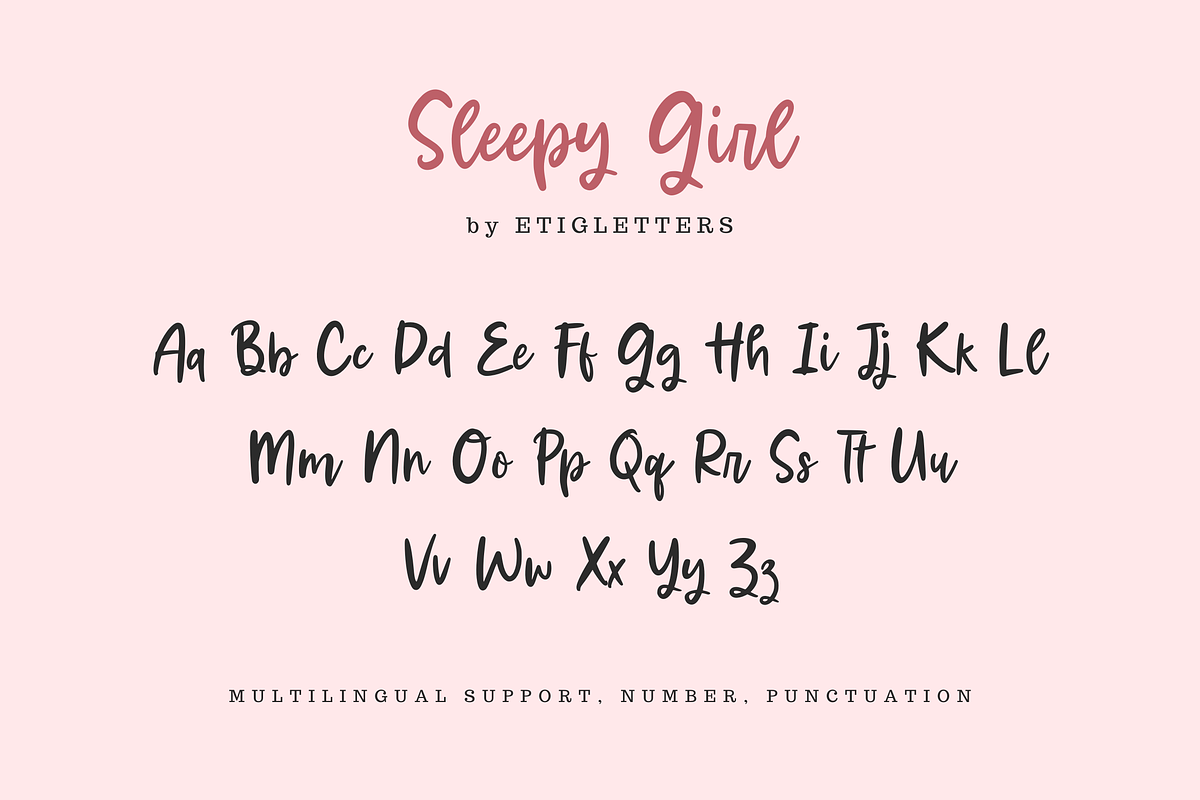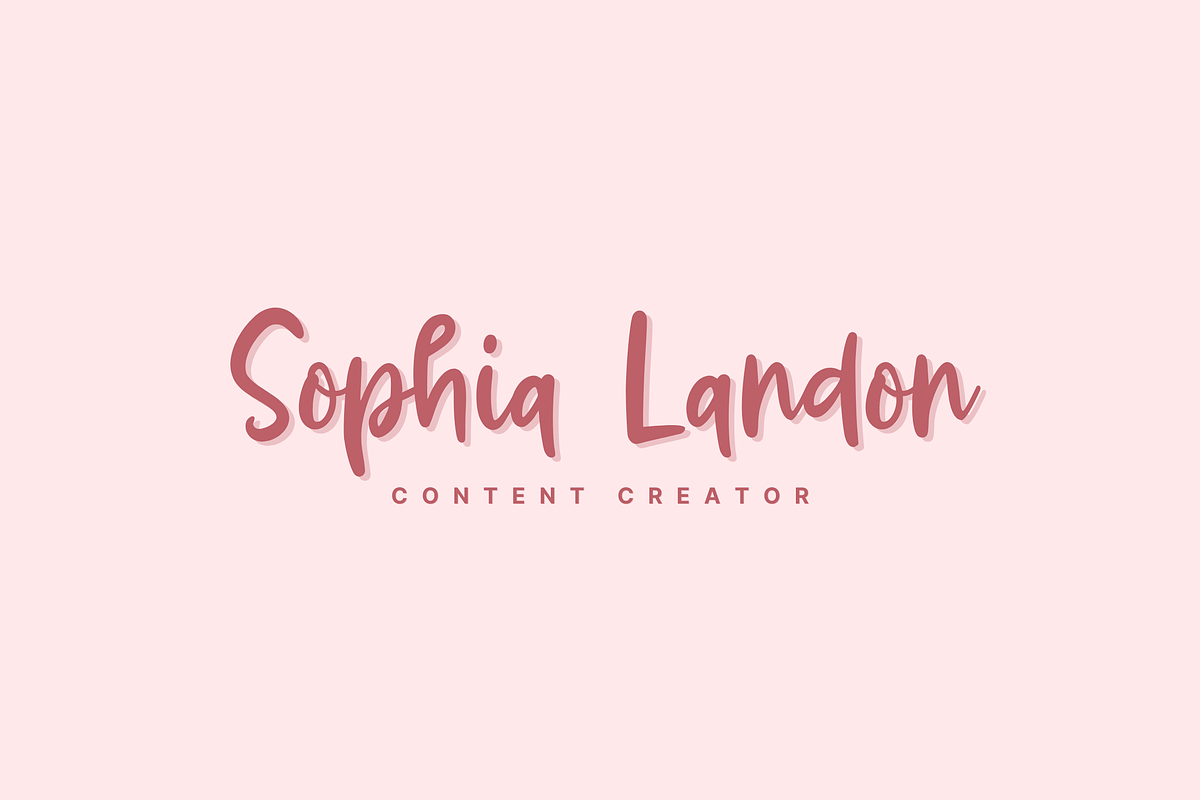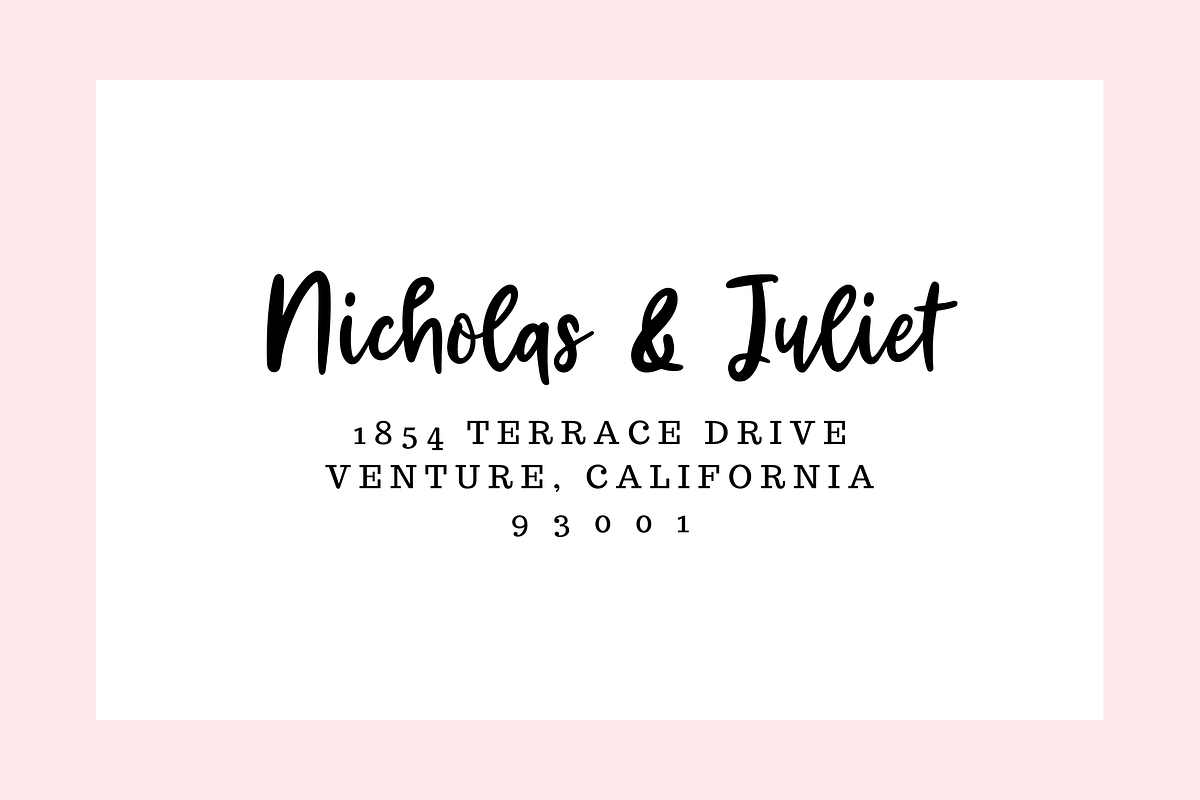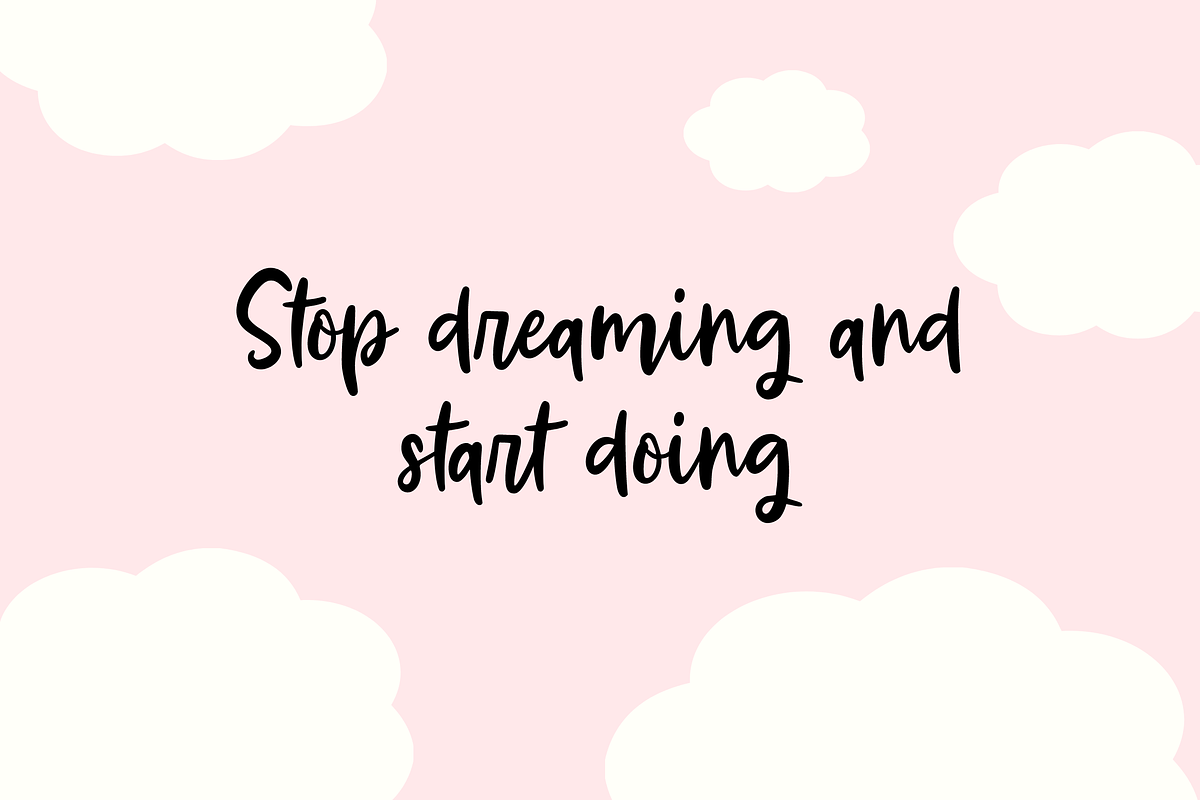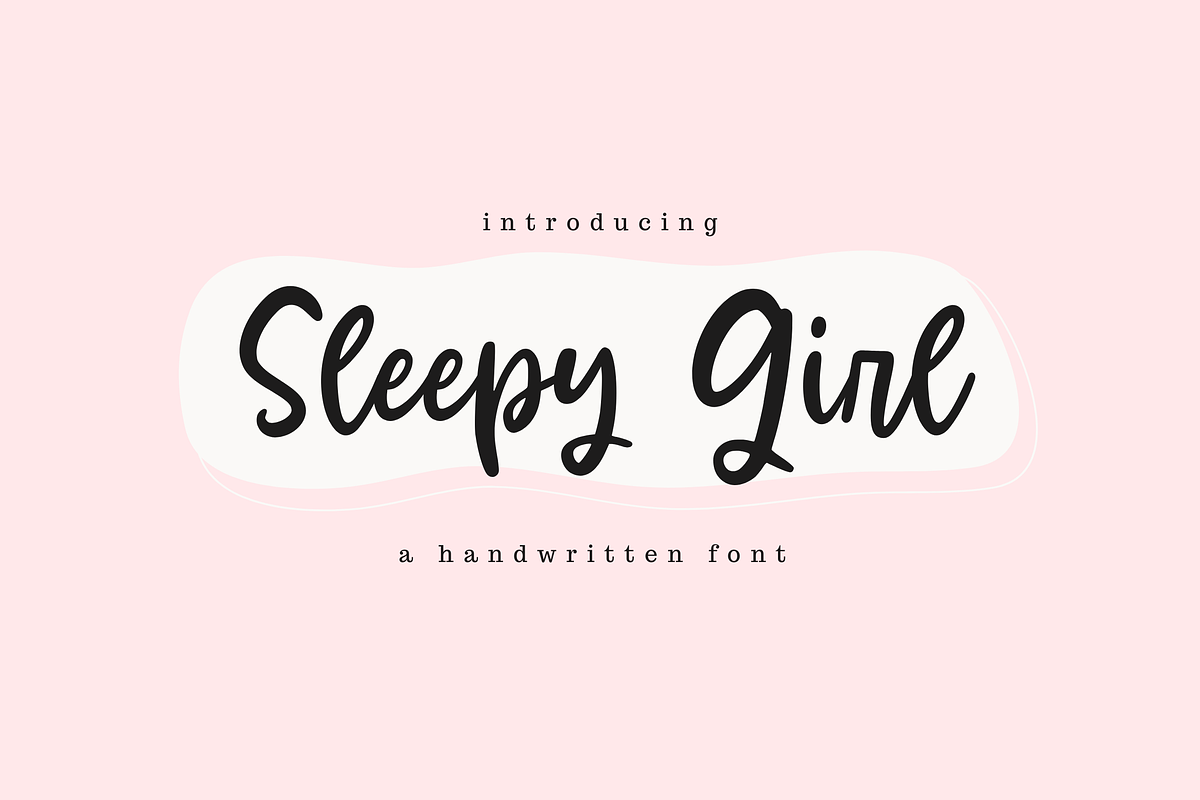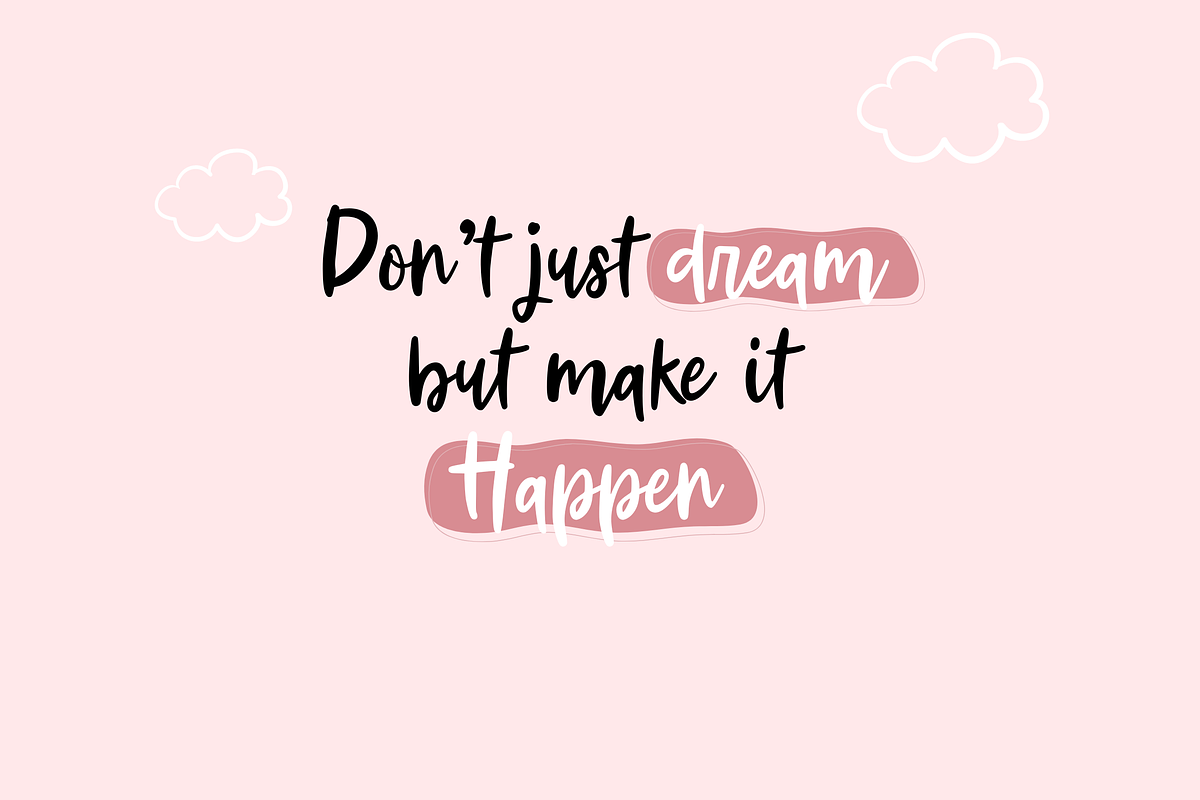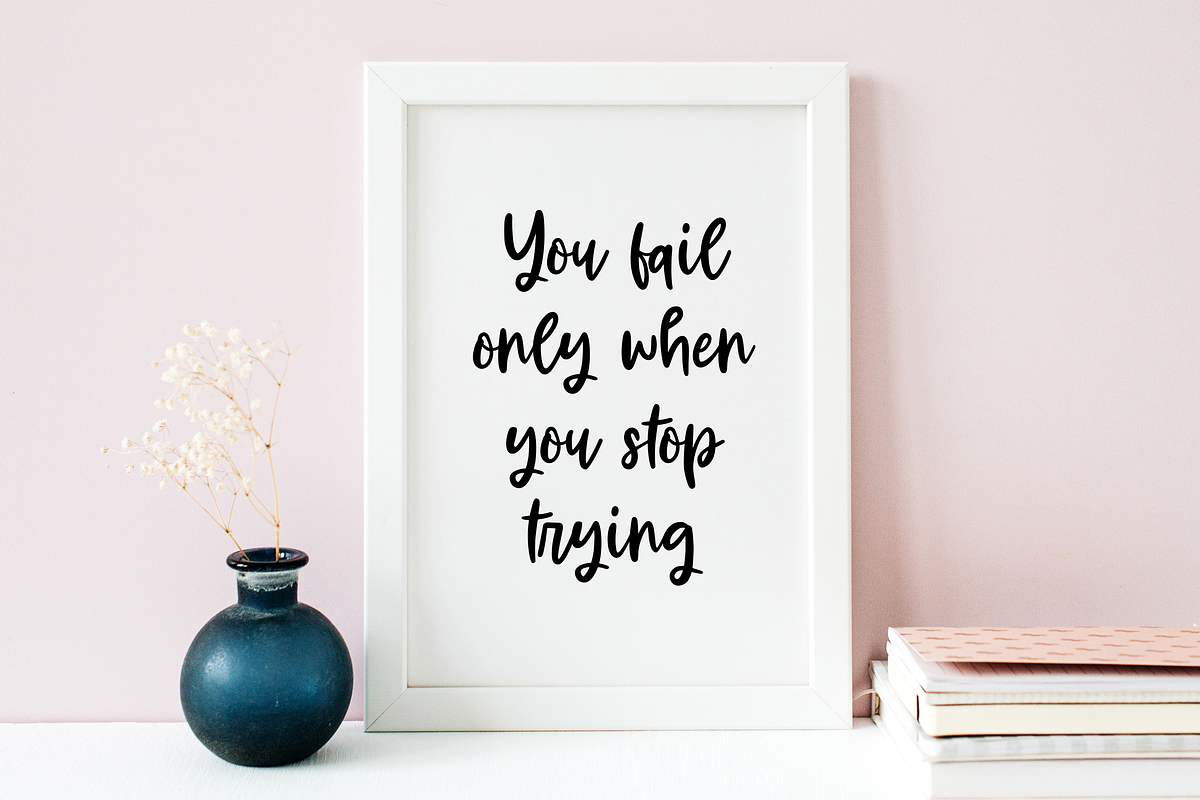
Sleepy Girl Font
Introducing, Sleepy Girl - a playful handwritten script font. Sleepy Girl Font will be perfect for stickers, greeting cards, logos, posters or anything that requires a fun and happiness look!